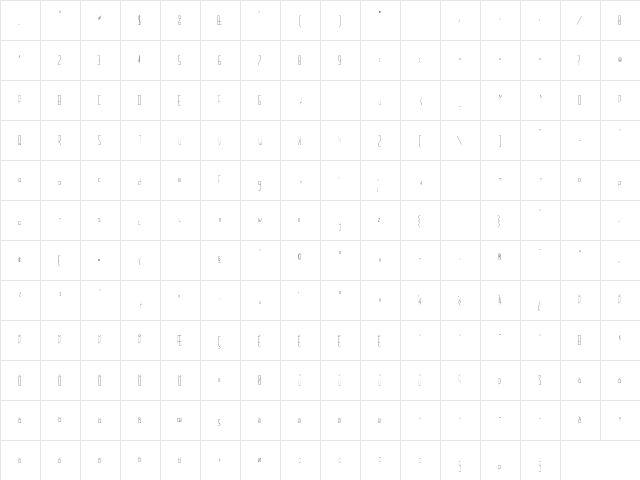
RM DECOthin Regular
| Designer | Ray Meadows |
Design Context for RM DECOthin Typeface
RM DECOthin offers clean, dependable letterforms without strong stylistic allegiance, making it a practical choice for designers who need flexibility. Its slender proportions lend an understated elegance to any composition.